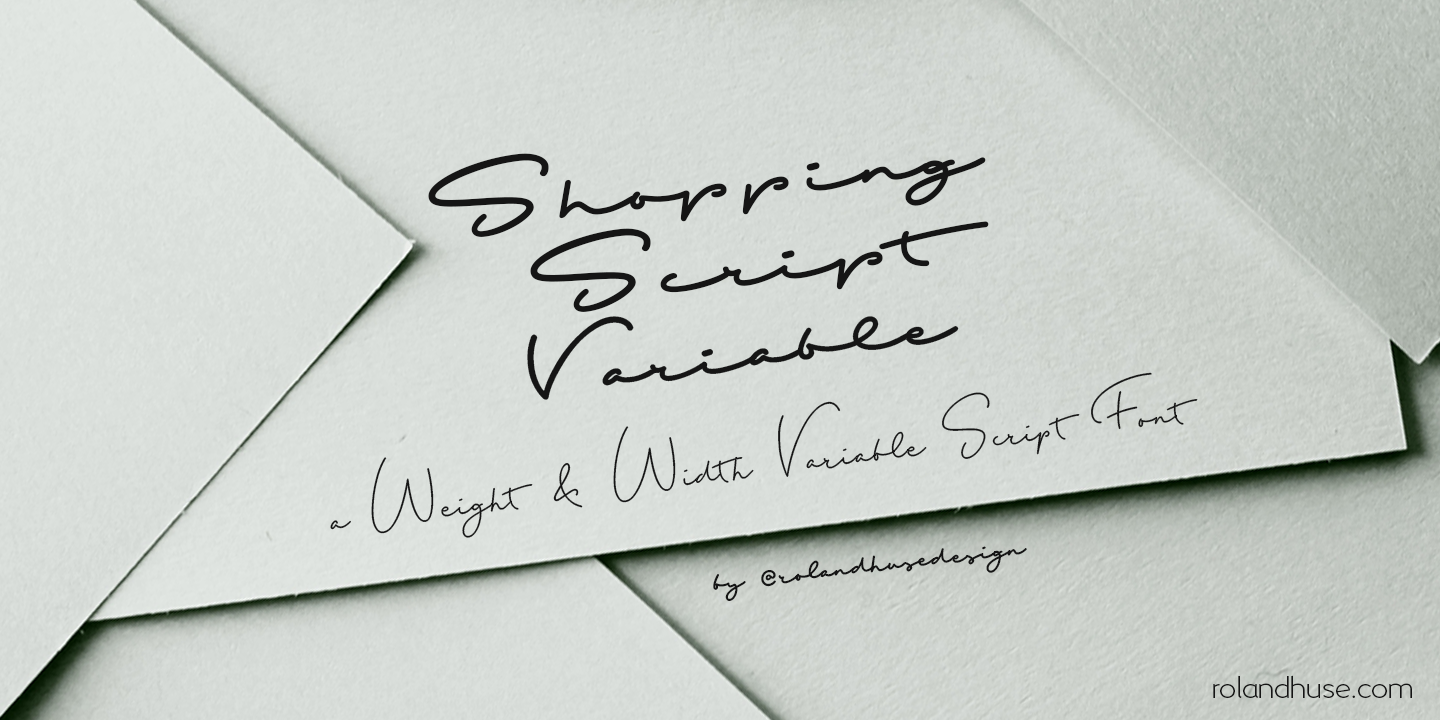
The Shopping Script Font is perfect for retail store branding, boutique signage, fashion e-commerce websites, luxury shopping campaigns, product packaging designs, promotional materials, shopping center communications, and elegant commercial advertising. This versatile typeface excels in fashion retailers, luxury boutiques, shopping centers, e-commerce platforms, and any business seeking to communicate style, elegance, and sophisticated shopping experiences in their visual communications.
What makes Shopping Script Font so exciting is its elegant, commercial character that perfectly captures the essence of upscale shopping and retail sophistication while maintaining exceptional readability and contemporary functionality. The font features graceful script letterforms with flowing curves, refined proportions, and distinctive details that evoke the luxury of high-end shopping experiences and the personal attention of boutique service. Its commercial design philosophy makes it ideal for brands that want to communicate style, quality, and the kind of elevated shopping experience that makes customers feel valued and sophisticated.
The Shopping Script Font family includes multiple stylistic variations: Regular, Bold, Light, and Ornate versions, each featuring contextual alternates, elegant swash characters, and commercial flourishes. Additionally, it offers shopping-inspired decorative elements, retail symbols, and luxurious ligatures that enhance the font's commercial appeal. The family includes extended character sets with multilingual support and specialized glyphs for retail and commercial design applications.
When you choose Shopping Script Font Free Download, you're investing in a typeface that embodies retail elegance and commercial sophistication while ensuring exceptional functionality across all modern applications. This font seamlessly combines luxury aesthetics with contemporary design requirements, making it perfect for both digital platforms and traditional print applications. The carefully crafted letterforms maintain perfect legibility while the distinctive commercial qualities create memorable brand experiences that resonate with shoppers seeking premium retail experiences and sophisticated style.
Whether you're developing retail brand identities, creating shopping marketing materials, designing e-commerce platforms, or establishing a visual identity that celebrates luxury shopping and commercial excellence, this font delivers outstanding elegance and retail appeal. The Shopping Script Font transforms your content into sophisticated communications that enhance the shopping experience and reinforce your brand's commitment to style, quality, and exceptional customer service.
This remarkable typeface represents the perfect fusion of commercial sophistication and script elegance. Download this stylish font today and discover how retail typography can enhance your projects, create luxurious shopping experiences, and establish your brand as a destination for discerning customers who appreciate quality and sophisticated style.